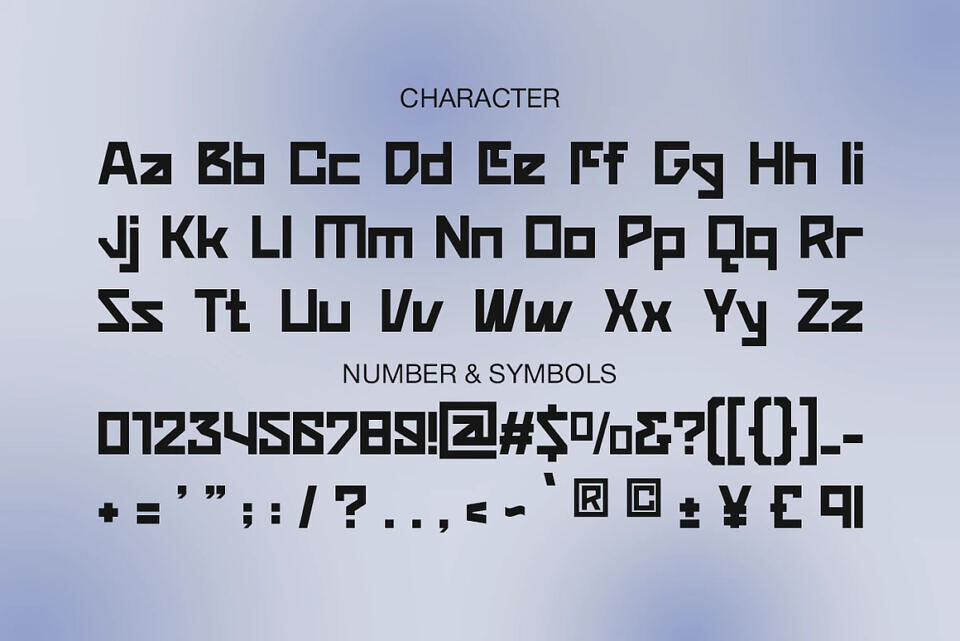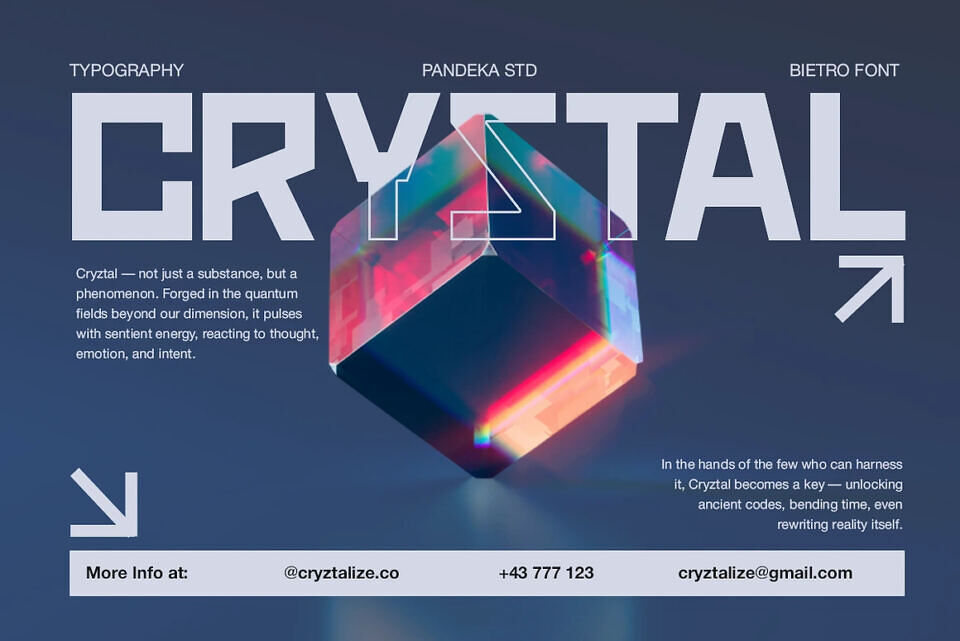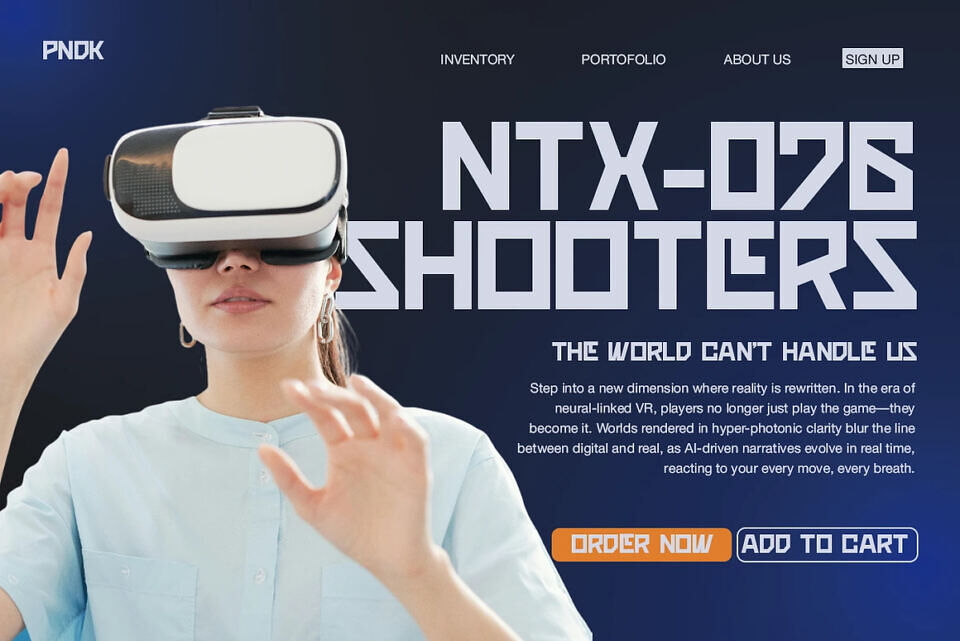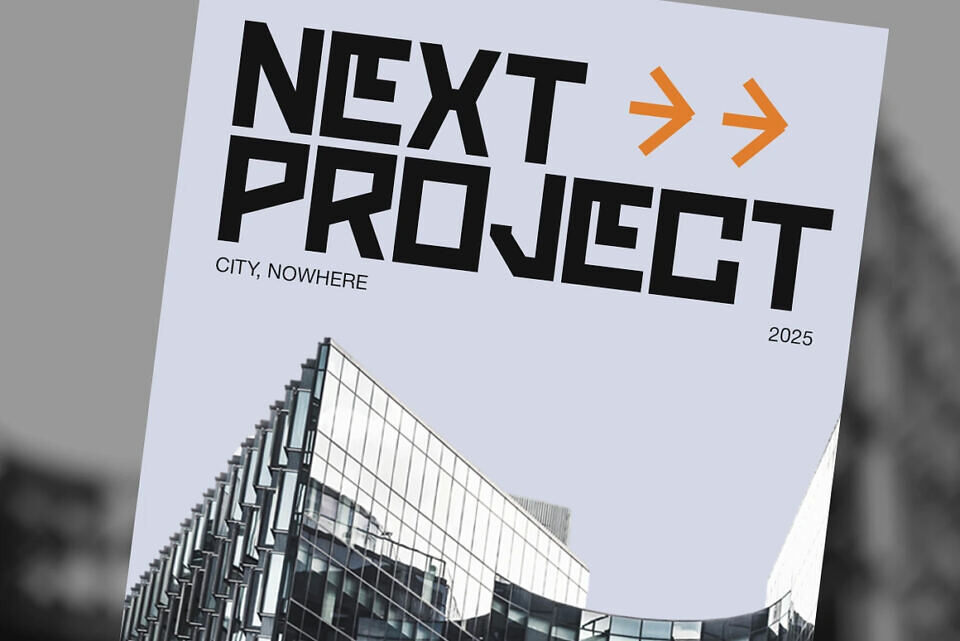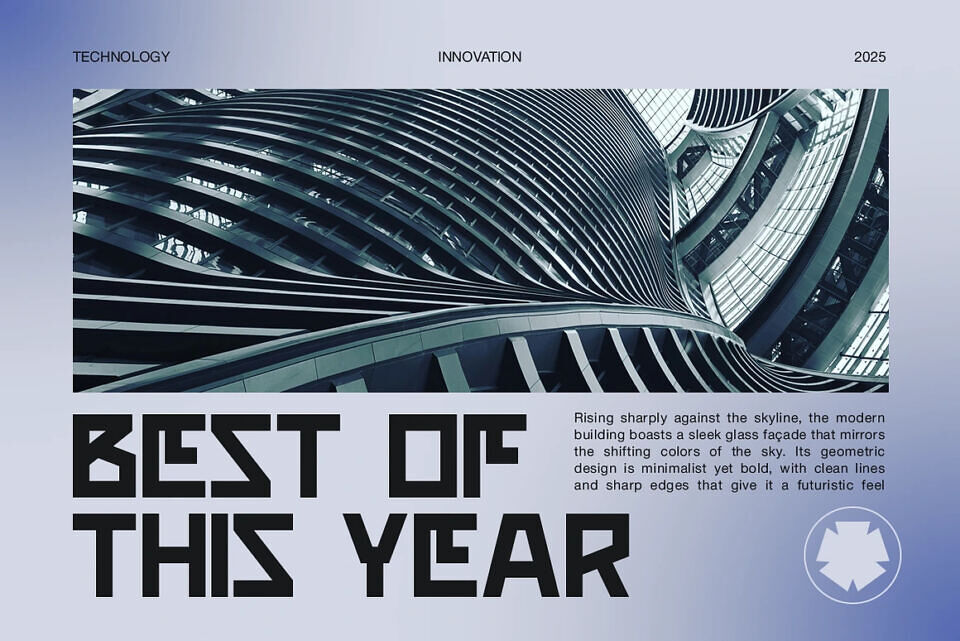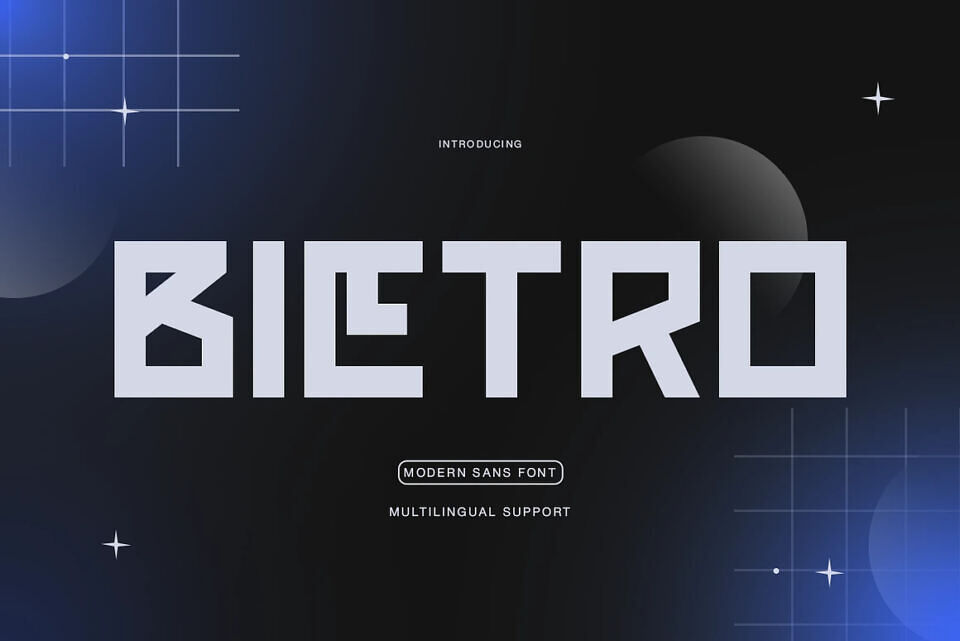
Bietro Font
Bietro is a bold and experimental display typeface inspired by digital grids, modular systems, and tech-forward aesthetics. Designed with sharp corners, angular cuts, and a geometric structure, Bietro feels at home in sci-fi interfaces, gaming titles, streetwear branding, and experimental visuals.
Its monospaced spirit and high-tech appeal make it ideal for futuristic editorial layouts, VR/AR interfaces, posters, or anything that demands a strong digital voice. Bietro includes uppercase and lowercase letters, numerals, punctuation, symbols, and multilingual support.